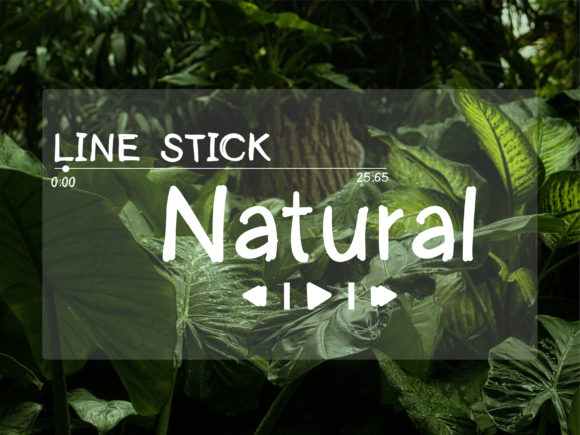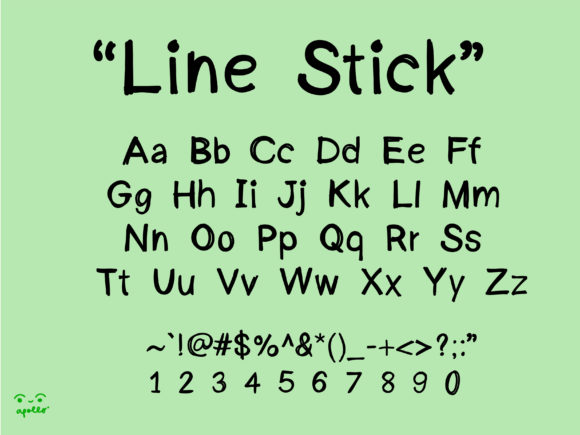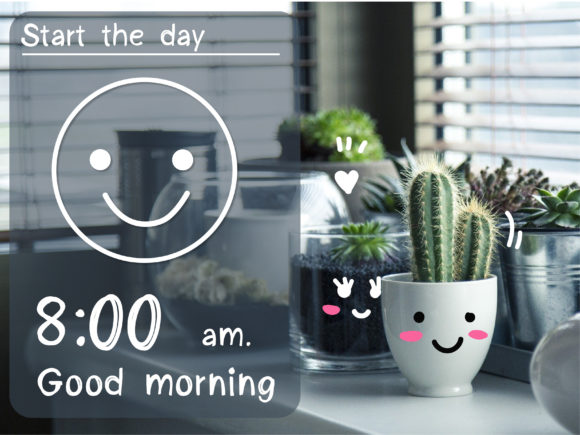
Introduction to Line Stick Font
Have you ever stared at a blank canvas, struggling to bring your creative vision to life? We’ve all been there. But what if you had the perfect tool to spark inspiration and take your design to the next level? Enter the Line Stick Font, a stunning display font that’s sure to add a fresh and exciting feel to all your creative projects.
Whether you’re a seasoned designer or a hobbyist looking for a new design resource, the Line Stick Font is an absolute must-have. Its unique double line design creates a beautiful, eye-catching effect that’s perfect for printing, online posts, or any other creative project you can imagine. And the best part? You can download it for free, complete with a transparent background that lets your design shine.
With the Line Stick Font, you’ll have the freedom to experiment with new ideas and push the boundaries of your creativity. Its high-quality design is perfect for adding a personal touch to your work, and its versatility makes it a valuable asset for designers of all levels.
Key Features of Line Stick Font
- Font size: 1,000 glyphs, covering a wide range of characters and symbols
- Unique characteristics: Geometric, minimalist design with clean lines and stick-like elements
- Perfect for designers looking for a modern and versatile font for their next creative project
Honest Review: Line Stick Font
I recently stumbled upon the Line Stick Font while searching for a unique design resource for a creative project. The font caught my eye with its bold and simple design.
- The font is incredibly versatile and can be used for a wide range of creative projects, from logos to typography-based designs.
- It’s also available in various weights and styles, giving designers plenty of options to experiment with.
- The font may not be suitable for projects requiring a large character set, as it’s primarily designed for display purposes.
- Some users may find the font’s simplicity too minimalistic for certain design applications.
Overall, I’m impressed with the Line Stick Font’s high quality and versatility. While it may have some limitations, it’s an excellent choice for designers looking for a bold and simple font for their creative projects.
Line Stick Font
The Line Stick Font is a versatile design resource ideal for creative projects that require a unique and eye-catching aesthetic. This font features a transparent background, making it easy to use and customize in various design applications.
Tips for Getting the Most Out of Line Stick Font
To get the most out of Line Stick Font, experiment with different font sizes, colors, and styles to create a unique look. You can also combine it with other design elements to add depth and visual interest to your project.
Common Use Cases for Line Stick Font
Line Stick Font is ideal for creative projects such as infographics, social media graphics, and posters. Its unique design makes it perfect for making a statement and grabbing attention.
Whether you’re working on a personal project or a client-based design, the Line Stick Font is sure to add a touch of sophistication and creativity to your work. So why not give it a try? Download the Line Stick Font today and discover the limitless possibilities it has to offer. With its high-quality design and versatility, it’s an asset that’s sure to become a staple in your design toolkit.